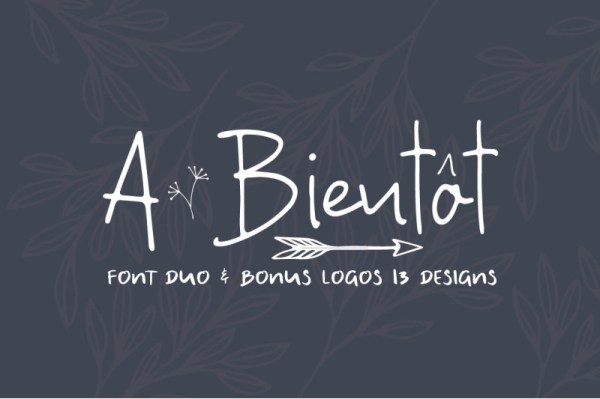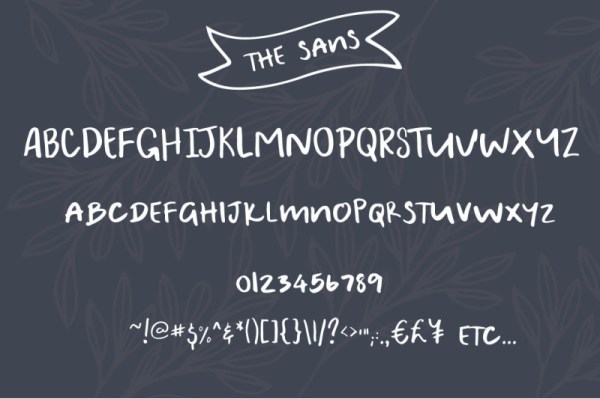
Freebie Wednesday: A Bientot Font
A Bientôt (by Nursery Art) is a perfect font for wedding invitation or your blog. You can also create a logo or beautiful frame for your home. Or just use for your small business, book covers, stationery and more. Include languages in script font: English, France, Italian, Spanish, German, Dutch, Finnish and Danish. A Bientôt is free for another 6 days on the Hungry Jpeg site, so don’t miss out!